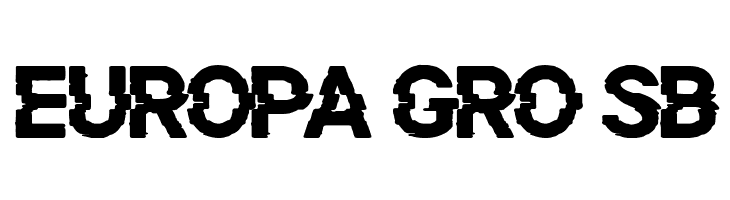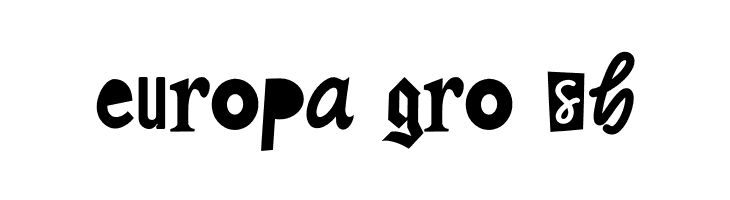
stamPete Font
A distressed, grunge-style font with a rugged, vintage appearance.
Dirty Old Town Font
A rugged, distressed font with a vintage, weathered appearance.
Hospital Font
A bold, hand-drawn font with a rugged, distressed style.
biliz_blurRegular Font
A playful, bold font with rounded edges and a bubbly appearance.
TheGoldsmithVintage Font
Font by Eric Kurniawan
A vintage, distressed font with a textured, handcrafted appearance.
The Frontman Font
Font by LJ Design Studios
A bold, geometric font with a distressed, vintage texture.
MERCURY Font
A wavy, dynamic font with a playful and artistic style.
Biohazard Font
A rugged, distressed font with jagged edges and a bold, edgy appearance.
Roman New Times Medium Font
A rustic, hand-drawn font with jagged edges and an artistic, organic feel.
verdana-hand Font
A bold, hand-drawn font with a rough, textured style.
Bodoni Hand Font
A bold, high-contrast serif font with a hand-drawn aesthetic.
H2D2-Alevita Rough Font
A rugged, distressed font with a vintage, industrial feel.
the dark Font
Font by Luis Jaramillo
A bold, distressed font with a grunge aesthetic and rugged texture.
Urban Brush Font
A bold, rugged font with a hand-painted, urban aesthetic.
loserboi grunge Font
A bold, distressed grunge font with a rugged, textured appearance.
Nirhauma Font
A bold, distressed font with a grunge texture and strong, impactful characters.
Hometown Rough Bold Shadow Font
Font by fey design
A bold, rough-textured font with shadow effects, perfect for vintage-themed designs.
!LestaticCSS Font
Font by !Exclamachine Type Foundry